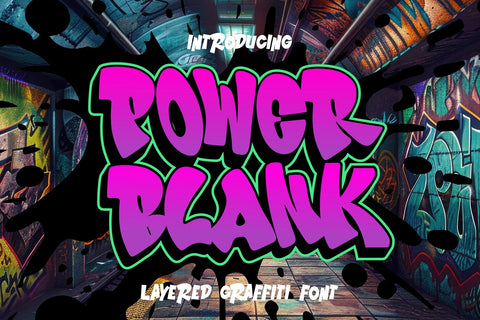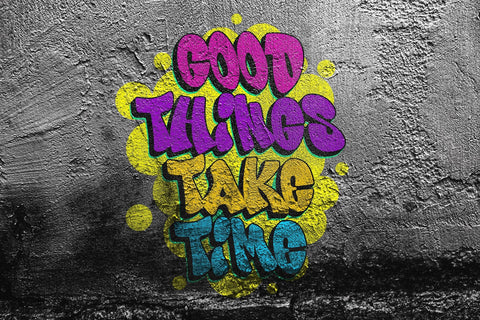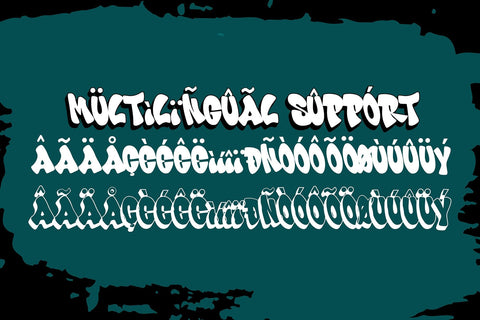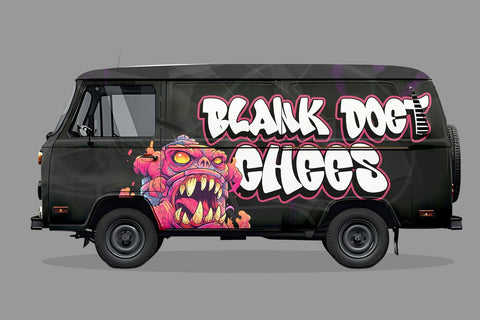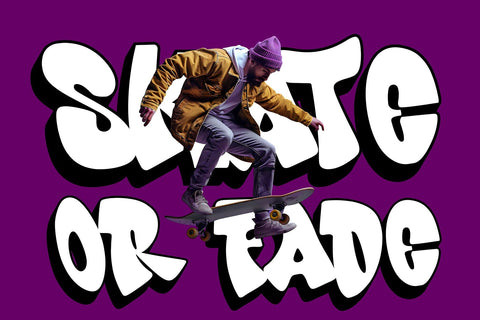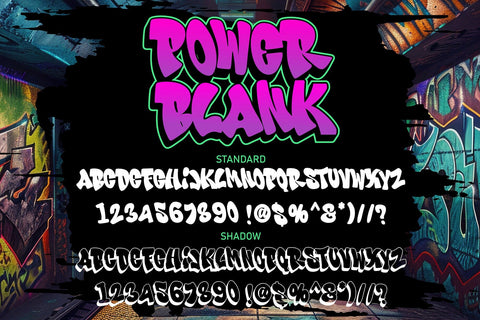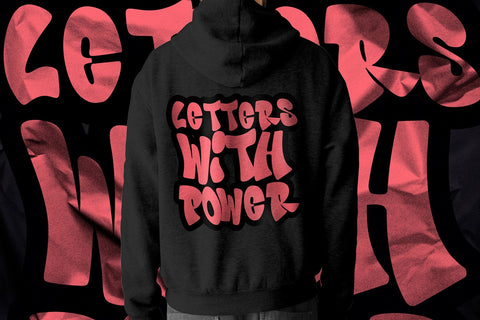
Power Blank | Bold Layered Graffiti Font
Power Blank is a bold layered graffiti font that brings the vibrant energy of street art into your designs. With chunky bubble characters, layered effects, and thick outlines, this font is ideal for logos, merchandise, posters, apparel, and digital graphics that need a strong graffiti vibe. Its layered style allows you to experiment with colors and effects to create truly dynamic typography.
Whether you’re working on branding projects, social media visuals, or bold marketing campaigns, Power Blank delivers a powerful, youthful, and street-smart style. Easy to use and versatile, it’s a must-have font for designers who love graffiti culture and want their work to stand out.